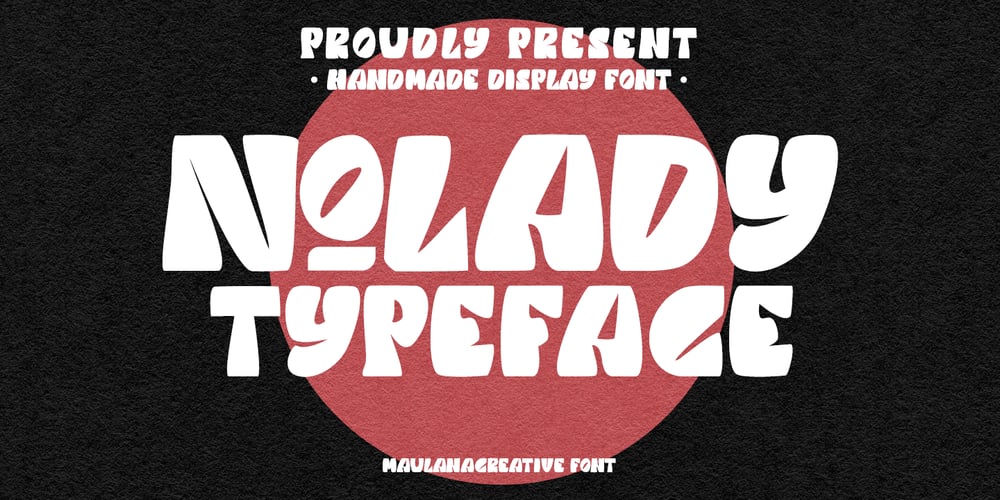
Nolady
Nolady font
Nolady Font Family was designed by Gilang Maulana and published by Maulana Creative. Nolady contains 1 styles and family package options. Nolady is a modern display font. bold stroke, fun character with a bit of ligatures and alternates. To give you an extra creative work. Nolady font support multilingual more than 100+ language. This font is good for logo design, Social media, Movie Titles, Books Titles, a short text even a long text letter and good for your secondary text font with script or serif. Make a stunning work with Nolady font. Cheers, Maulana Creative